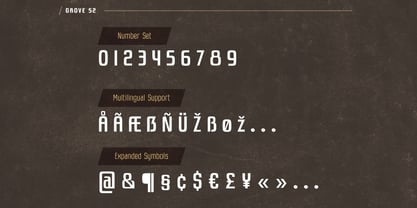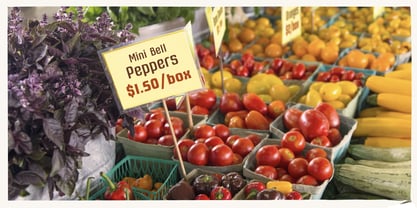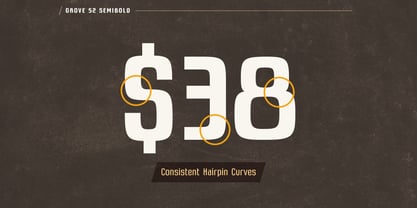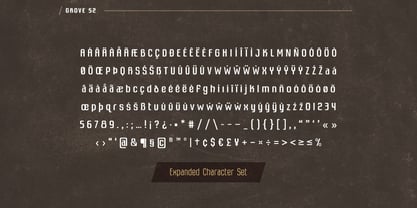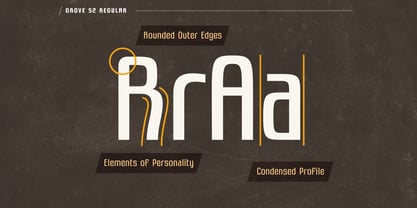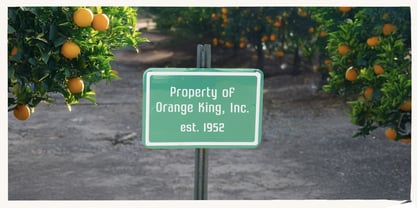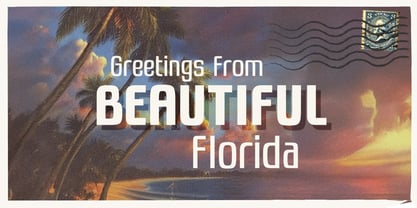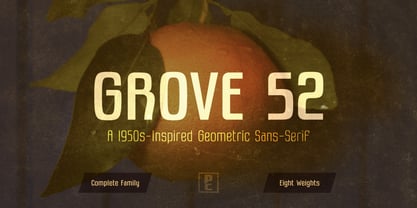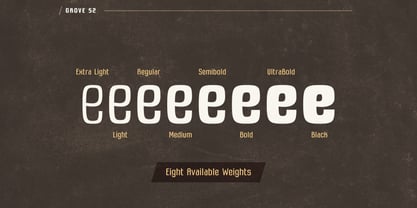
Grove 52
by Parker Creative
The Grove 52 Font Family was designed by Alan Parker and published by Parker Creative. Grove 52 contains 8 styles and family package options. More about this family
Introducing Grove 52, a retro geometric sans-serif inspired by the iconic signage of Florida’s citrus farms in the 1950s. Grove 52 draws from the straightforward, utilitarian style of Florida’s classic citrus industry signage, showcasing signature details like tight hairpin curves and tall condensed letterforms.
While honoring the classic look, Grove 52 infuses modern elements through subtle, distinctive character details such as rounded corners and charming flourishes. With careful kerning and an expanded multilingual character set, it ensures versatility for contemporary applications. Grove 52’s clean geometry and lively personality make it an excellent choice for designs that aim for a warm, approachable feel without appearing overly casual.
Available in a full range of 8 weights, Grove 52 also provides exceptional readability, making it well-suited for everything from bold headlines to engaging body text and logo design, among other uses.
Designers: Alan Parker
Foundry: Parker Creative